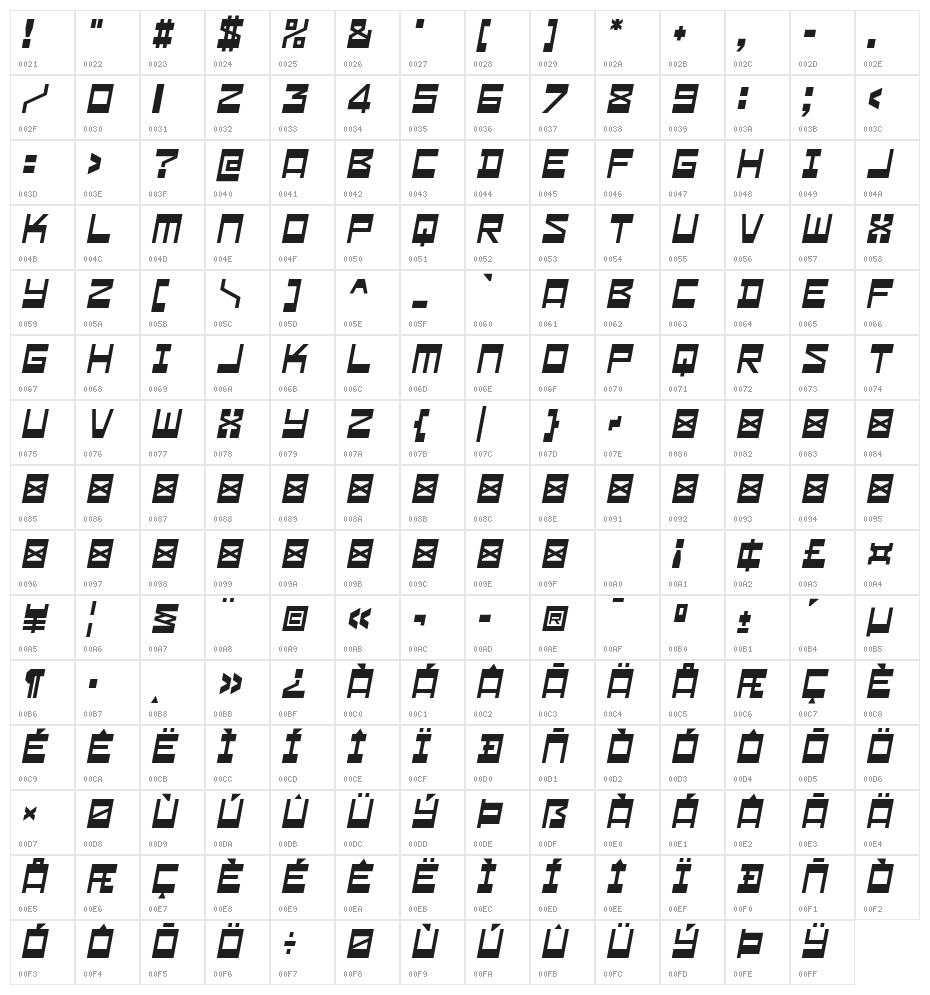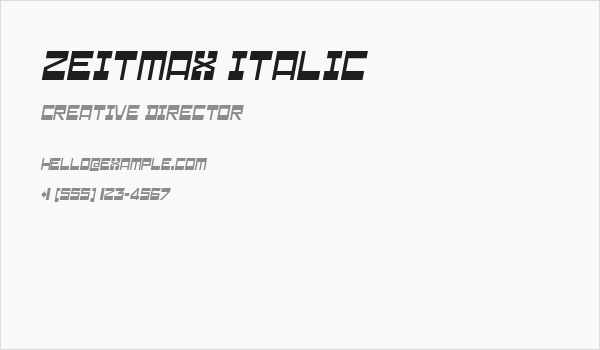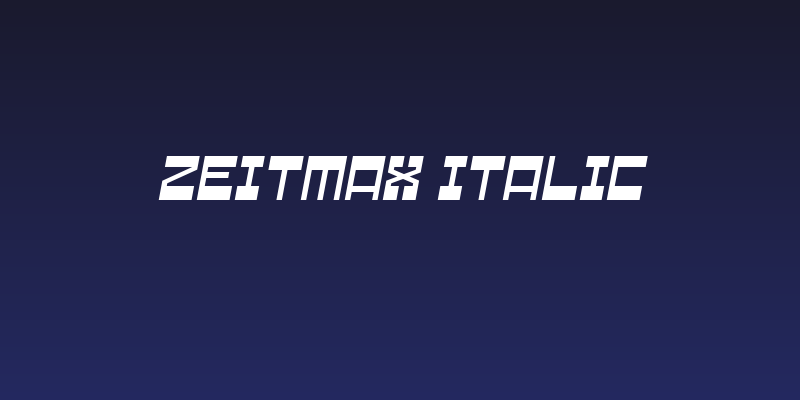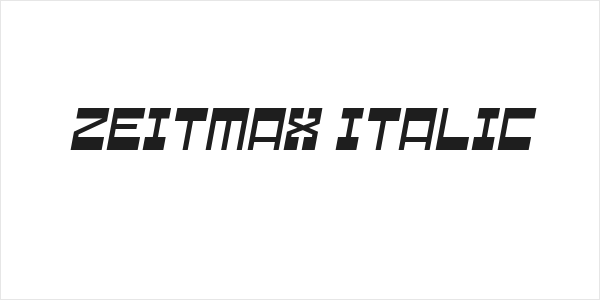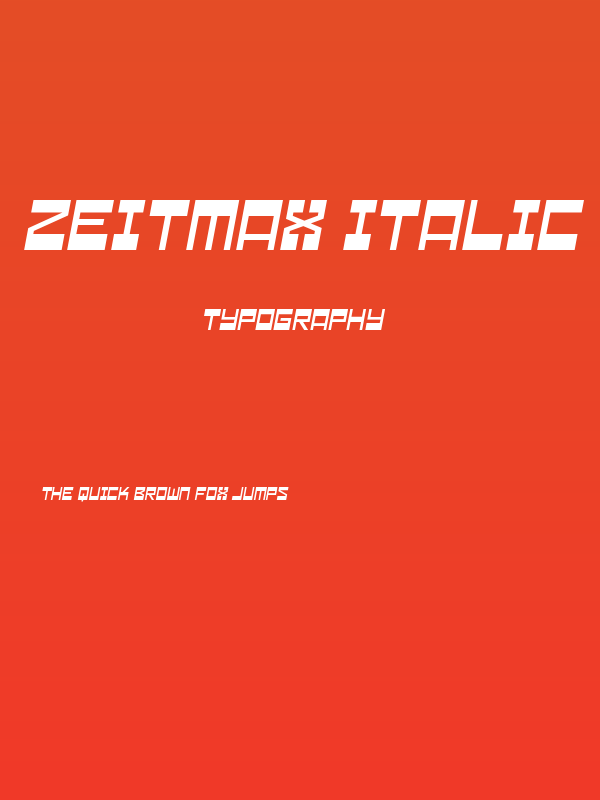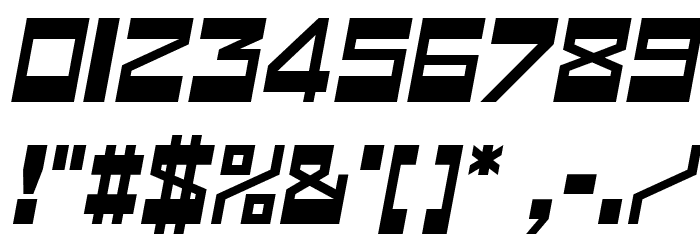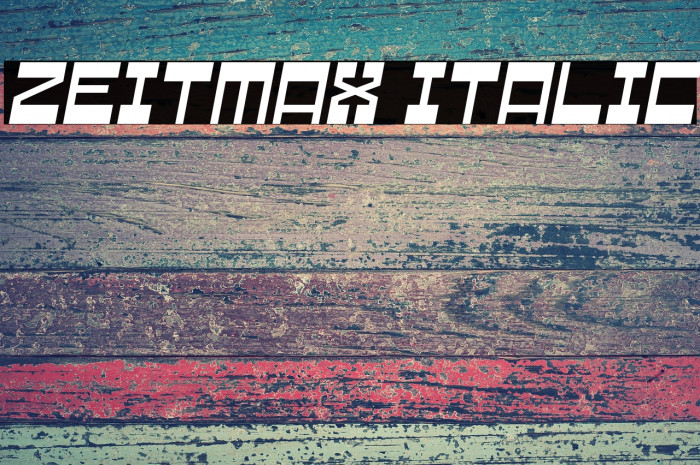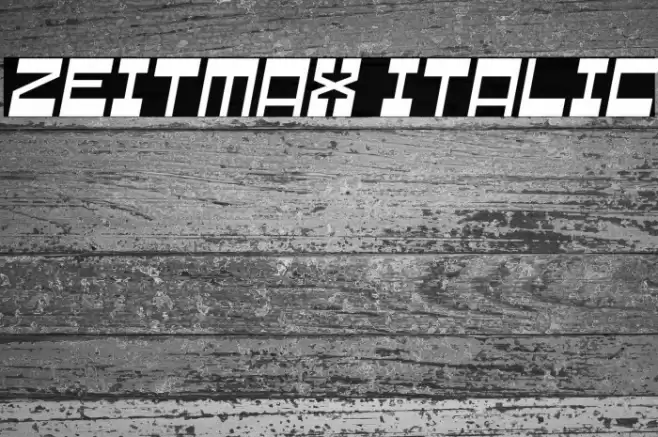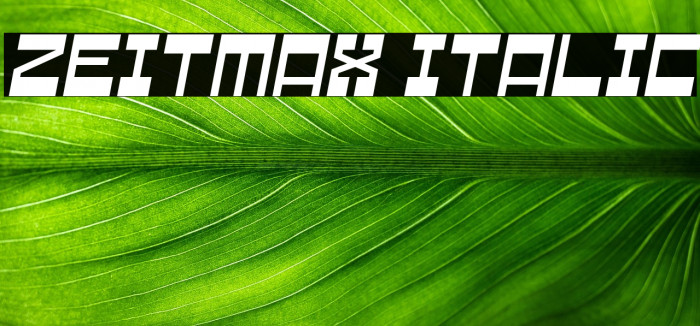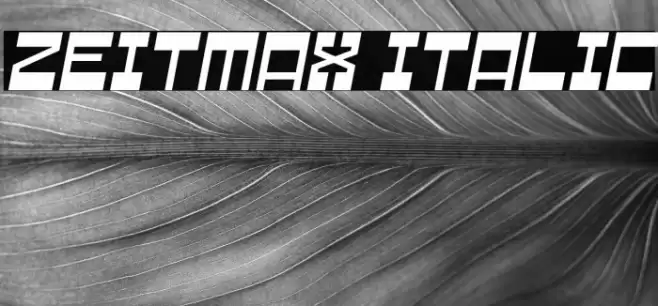
Zeitmax Italic Font
Zeitmax Italic Description
This font features a bold and angular design with a futuristic and dynamic appearance. The characters are sharply defined with a distinct slant, giving them a sense of motion and energy. The uppercase and lowercase letters maintain a consistent geometric style, with straight lines and sharp angles. The numbers and special characters follow the same design principles, ensuring uniformity across the typeface. The overall look is modern and edgy, suitable for projects that require a strong visual impact.
| Proposed Projects | Ideal for sci-fi themed designs, video game titles, tech branding, and modern posters. |